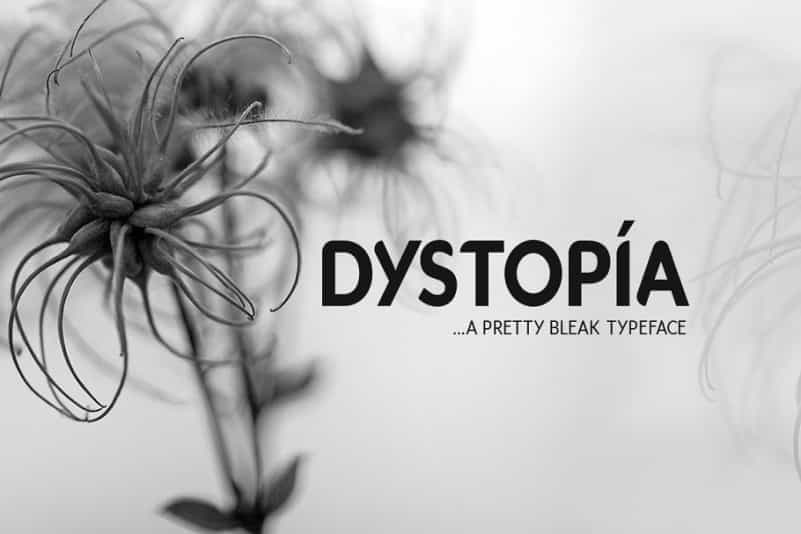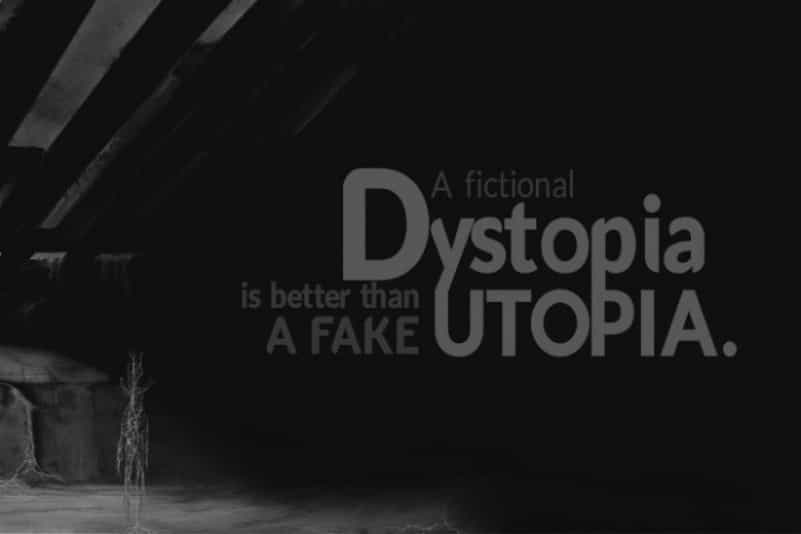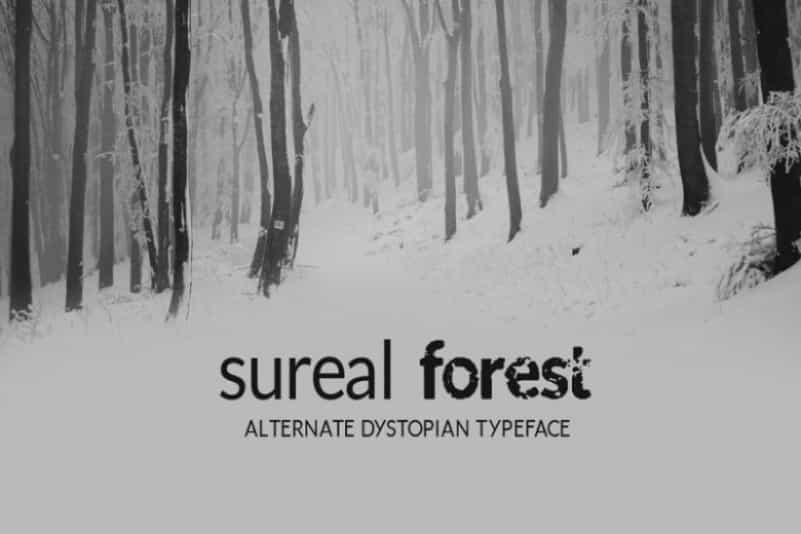
Dystopia Font is a great sans serif that is both bold and elegant yet minimalist in its design. It is ideal for logos, texts, presentations, posters, magazines, notices, titles, name card, magazine, web layouts, invitations, headers, branding and other any business related marriage, branding, social networks, product design, invitations, and commercials.